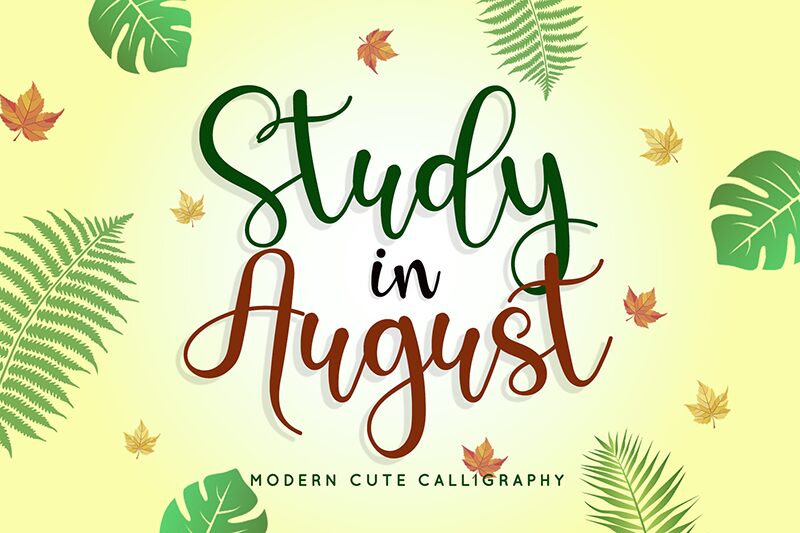
Study In August
Study in August by Airotype Studio is a poetic, light font combining the best of handwritten and calligraphic style. Its smooth curves, flowing lines, and artistic appearance make this delicate font a both classic and modern. If exceptional is what you seek for your print or digital designs, then this elegant item can fulfill your desire.
Put Study in August to use for all your logos, posters, flyers, document titles, magazines covers or titles. Invitations like wedding cards or baby showers are an excellent match as well! Other ideas include stationery design within business cards and letterhead sections.